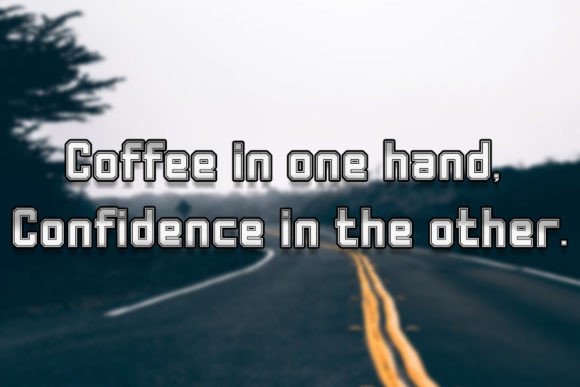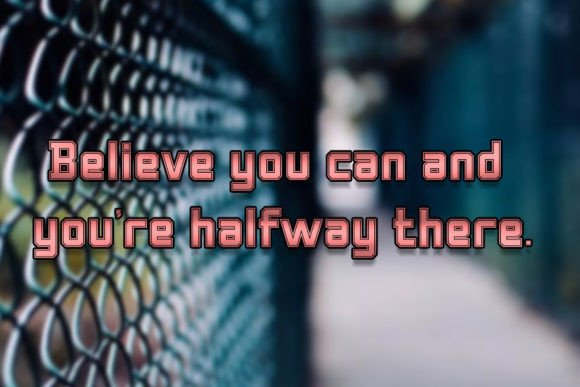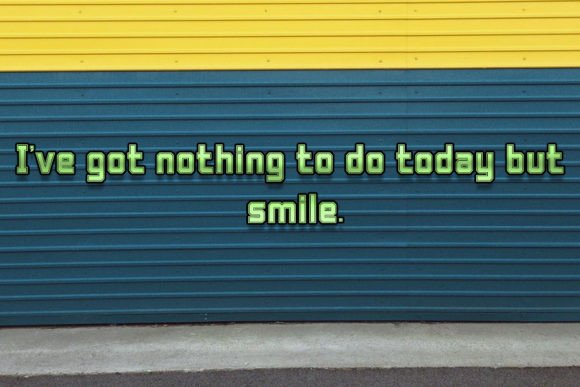
Introducing Center Font: Elevate Your Designs with Elegance
In the world of typography, fonts play a crucial role in conveying messages, expressing creativity, and establishing brand identities. For designers and crafters, finding the perfect font that balances aesthetics and functionality can be a daunting task. However, if you’re looking for a font that seamlessly blends traditional influences with a contemporary twist, look no further than Center Font. This elegant sans-serif font is designed to elevate your designs, whether you’re working on branding, logos, greeting cards, business cards, posters, t-shirt designs, menu designs, social media, or websites.
The Essence of Center Font
Center Font is characterized by its clean lines, sophisticated style, and versatility. Its sans-serif design ensures a modern look that appeals to a wide range of audiences, making it an excellent choice for various design projects. The font’s elegance lies in its subtle nods to traditional typography, which provide a sense of familiarity and timelessness. This blend of old and new makes Center Font a unique addition to any designer’s toolkit.
Key Features of Center Font
- Elegant Sans-Serif Design: The font’s sleek and modern appearance makes it perfect for designs that require a touch of sophistication.
- Versatility: Center Font can be used across multiple platforms and design projects, from print materials like greeting cards and posters to digital applications such as social media and websites.
- Traditional Influences: The subtle hints of traditional typography in Center Font add a layer of depth and classic appeal to your designs.
- Easy to Read: The clear and legible nature of the font ensures that your message is communicated effectively, making it ideal for body text and headings.
Applications of Center Font
Center Font’s adaptability makes it suitable for a myriad of design applications. Here are a few ideas to get you started:
- Branding and Logo Design: Create a lasting impression with a font that exudes professionalism and elegance.
- Greeting Cards and Invitations: Add a touch of sophistication to your cards and invitations, making them stand out.
- Business Cards: Make a statement with a clean and modern business card design that reflects your professionalism.
- Posters and Flyers: Grab attention with bold headings and clear, readable text.
- T-Shirt Designs: Create eye-catching and stylish apparel with a font that’s both modern and elegant.
- Menu Designs: Elevate your restaurant or cafe’s menu with a sophisticated and easy-to-read font.
- Social Media and Websites: Enhance your online presence with a consistent and professional typography.
Tips for Using Center Font Effectively
To maximize the impact of Center Font in your designs, consider the following tips:
- Mix and Match: Experiment with different weights and sizes of Center Font to create visual hierarchy and add depth to your designs.
- Pair with Other Fonts: Combine Center Font with complementary fonts to add contrast and interest to your designs.
- Consider Your Audience: Tailor your use of Center Font to suit your target audience’s preferences and expectations.
- Keep it Simple: Don’t overcomplicate your designs. The simplicity and elegance of Center Font can often be the key to an effective design.
Center Font is a versatile and elegant sans-serif font that brings a unique blend of traditional influences and contemporary aesthetics to your designs. Whether you’re a designer, crafter, or business owner, this font offers the perfect combination of style, readability, and adaptability. By incorporating Center Font into your projects, you can elevate your brand, enhance your designs, and leave a lasting impression on your audience. So, why wait? Explore the possibilities with Center Font today and discover how it can transform your creative endeavors.